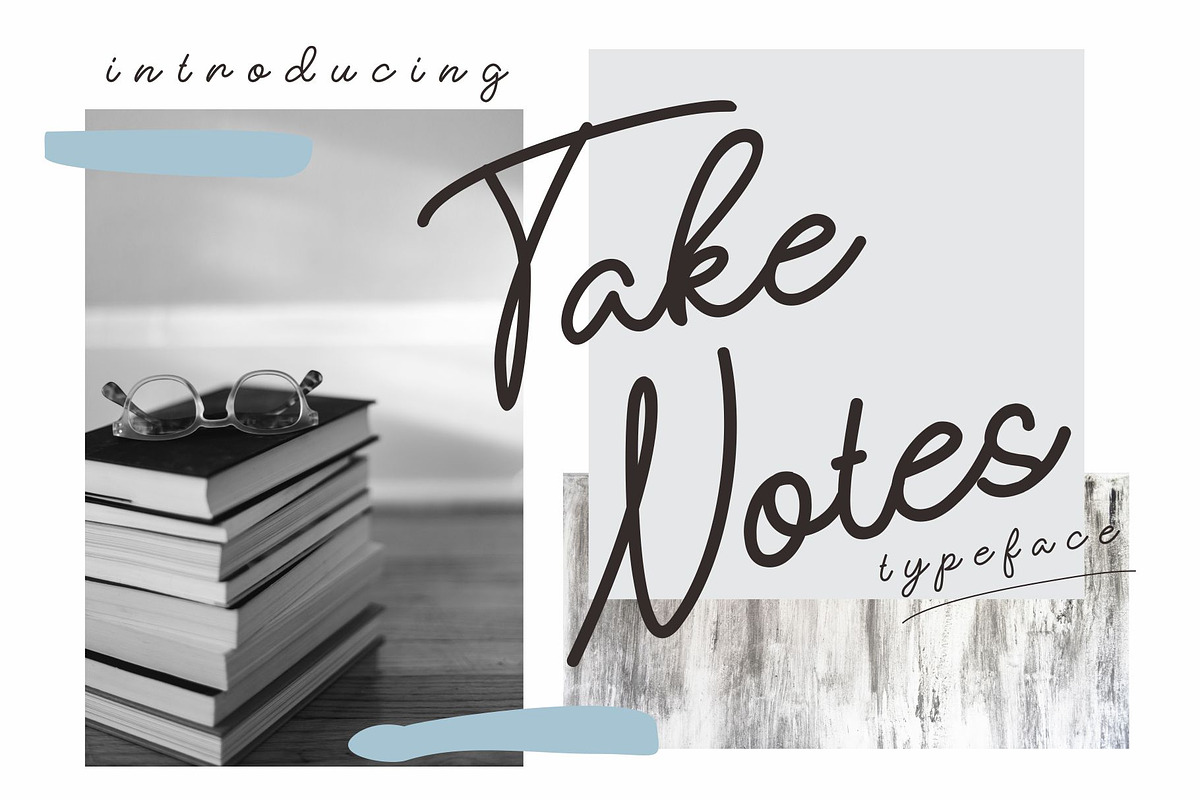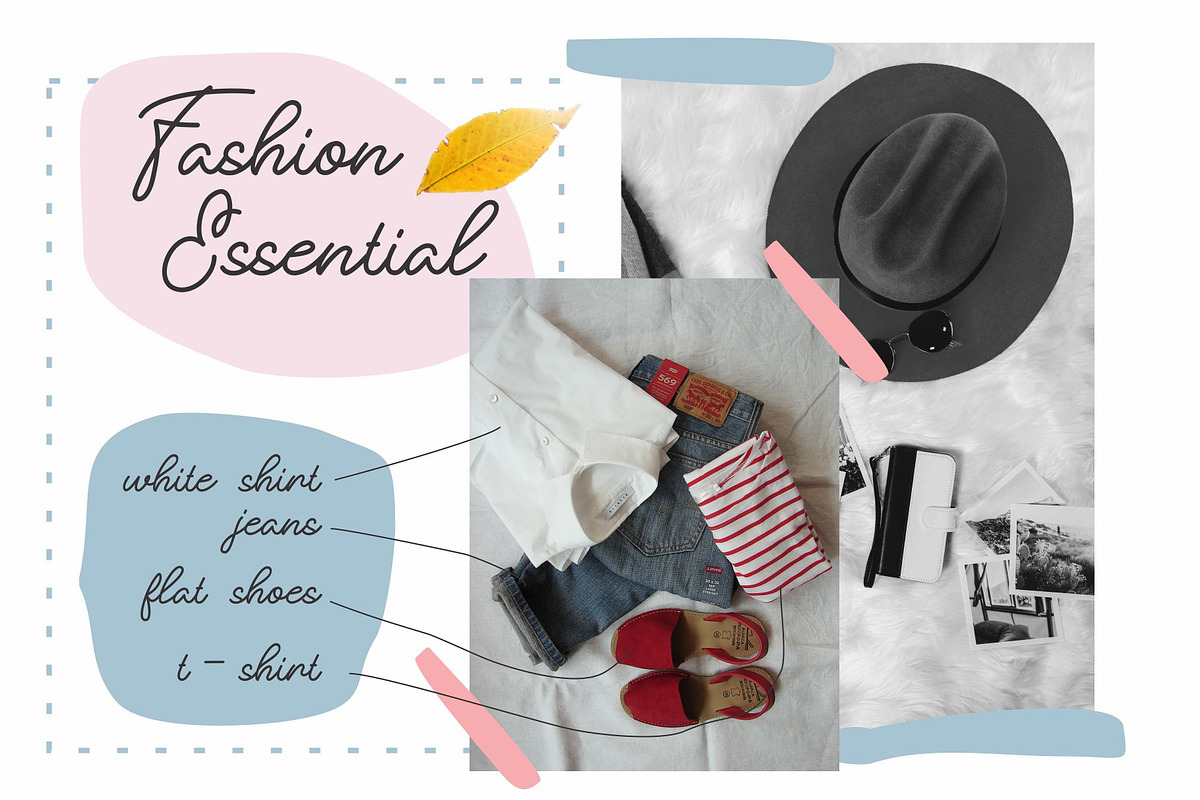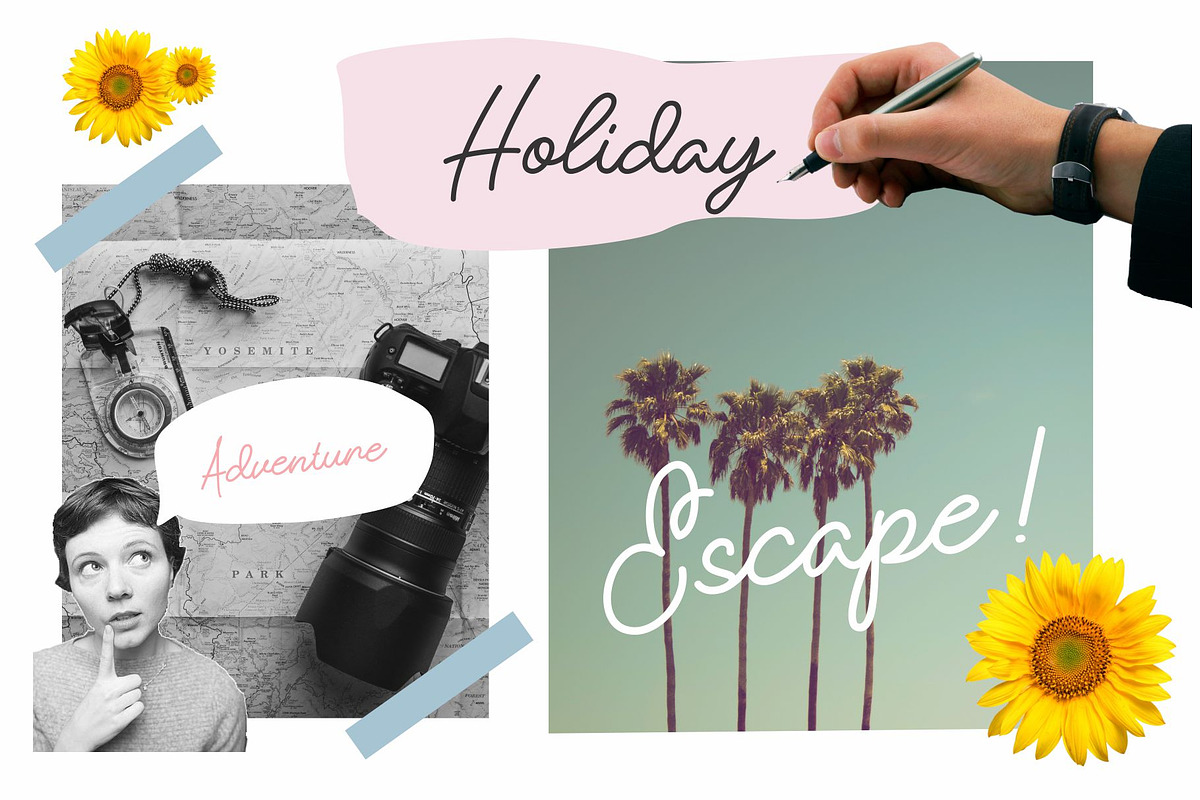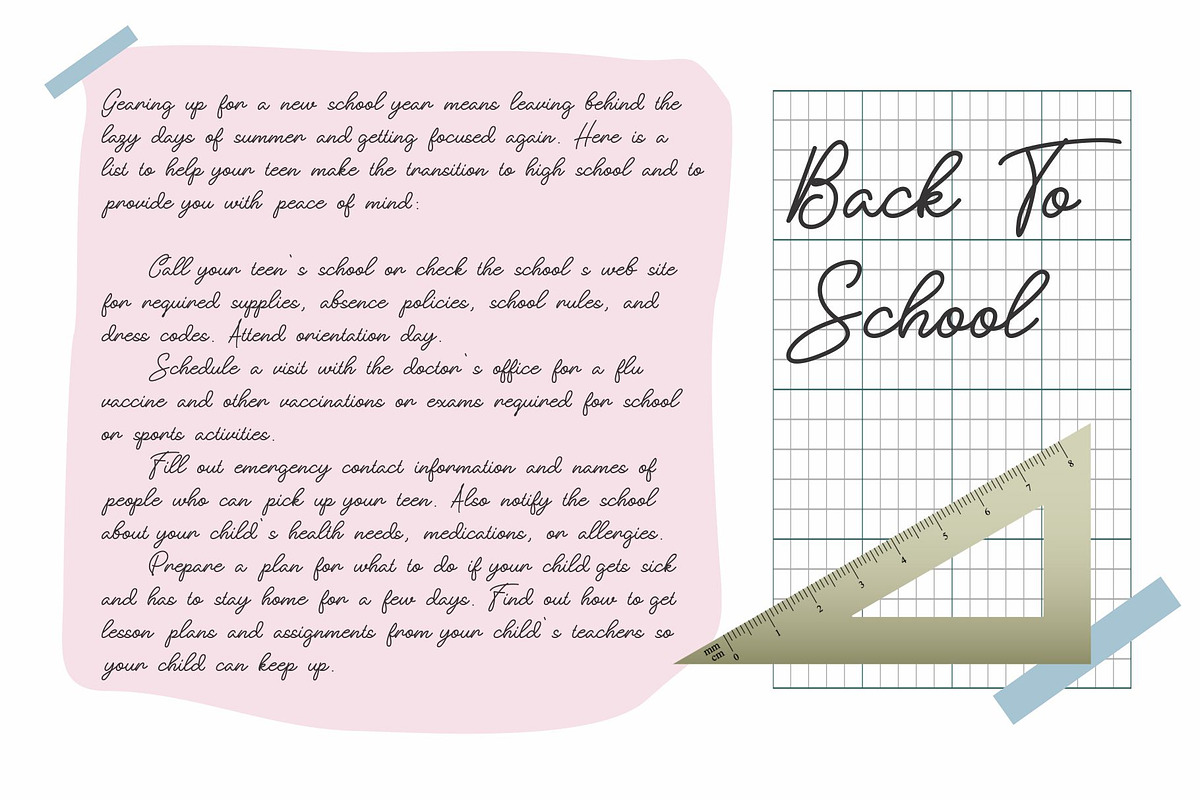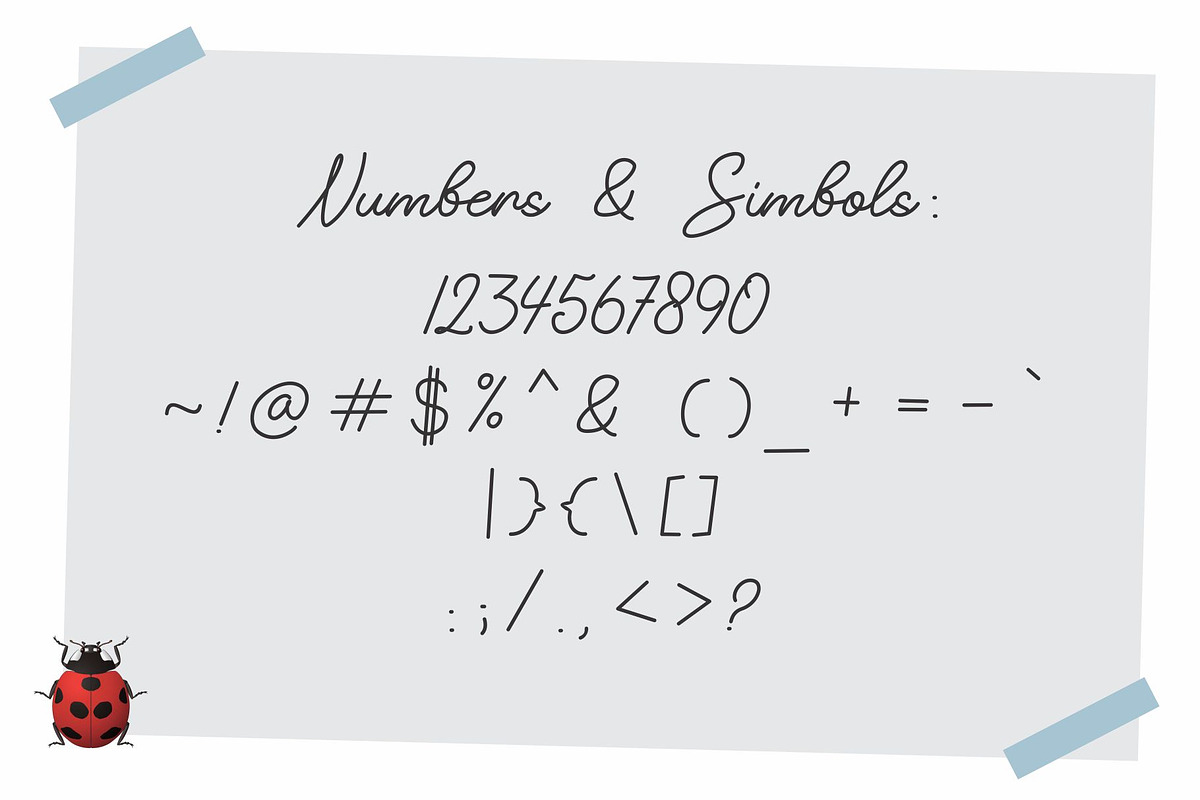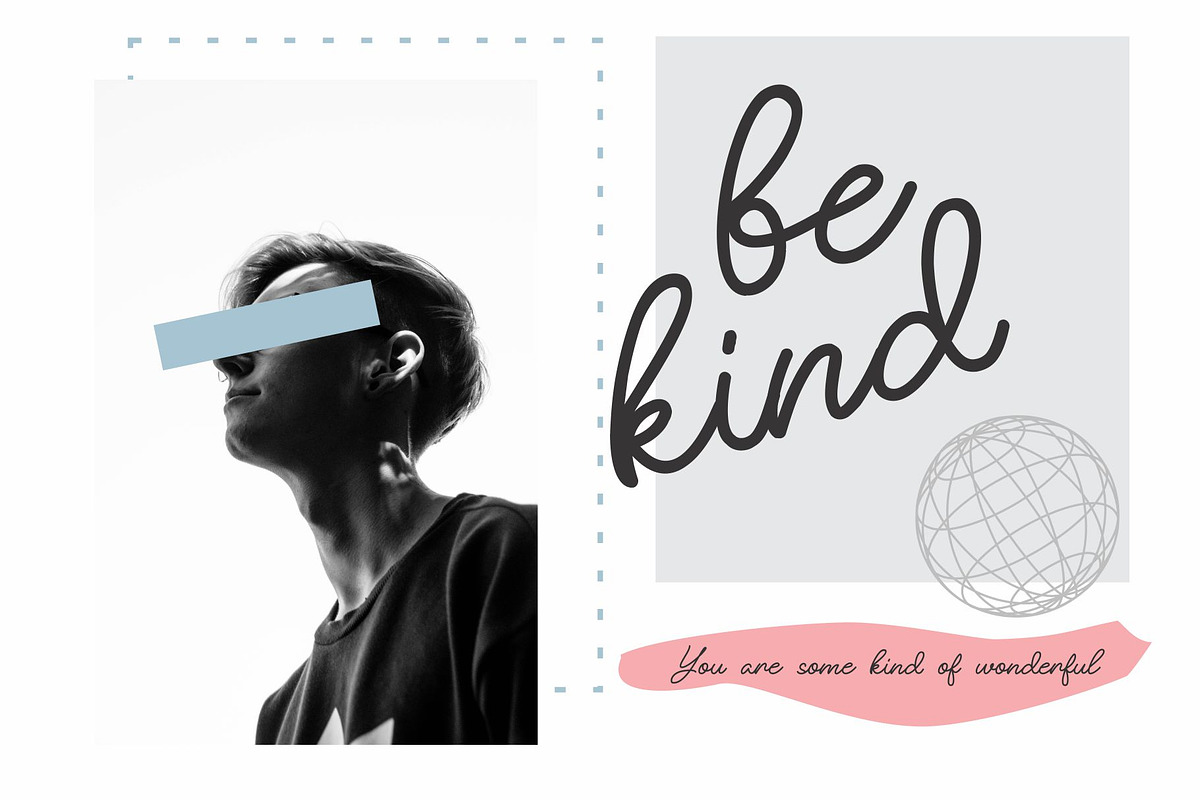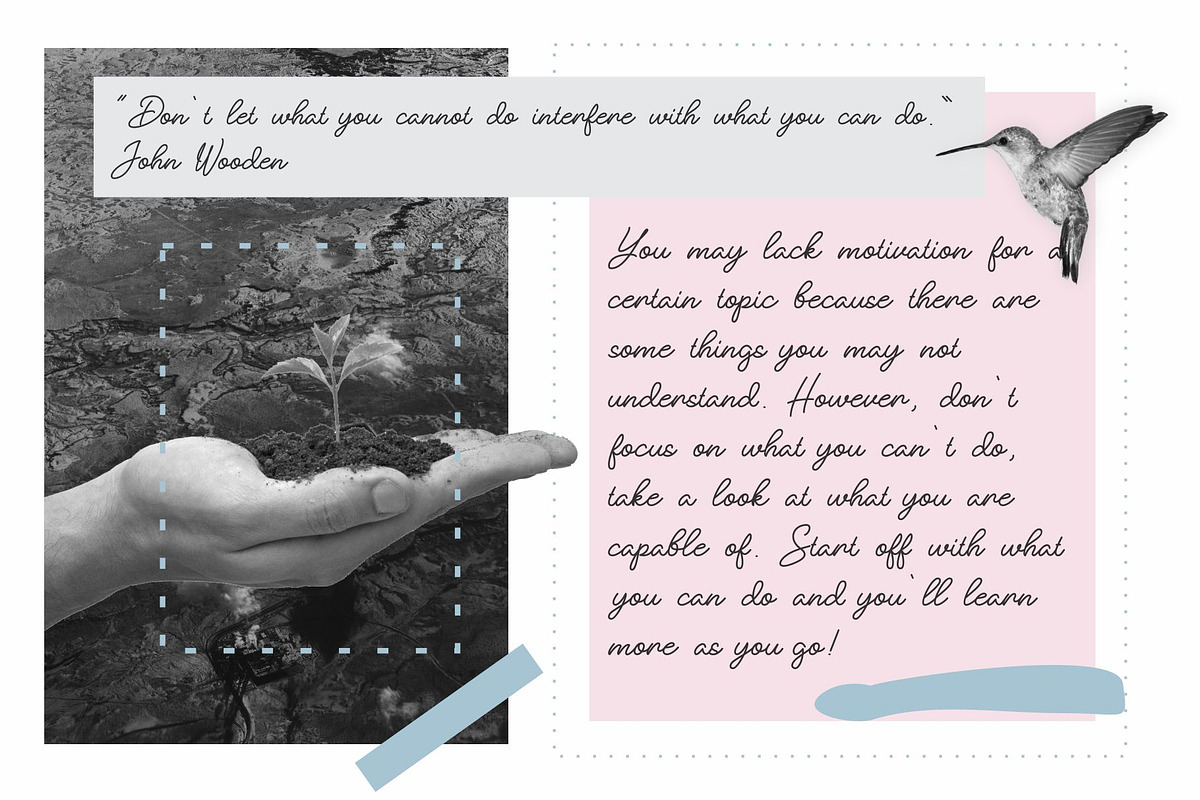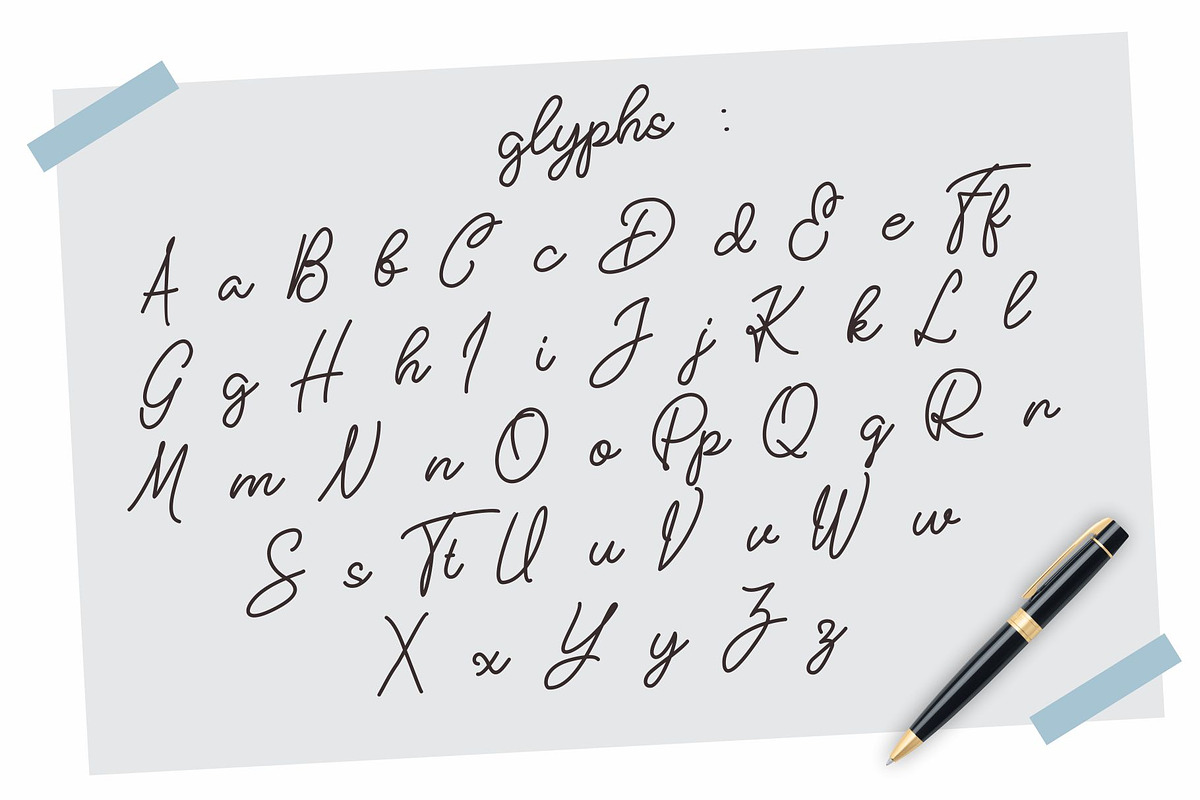
Take Notes Typeface
Introducing our new handwritten typeface, Take Notes.
Type like you Take notes.
This typeface has a personal touch. You can use it for creating notes, a diary, back to school style project, scarp book, and other project that need a natural feel.